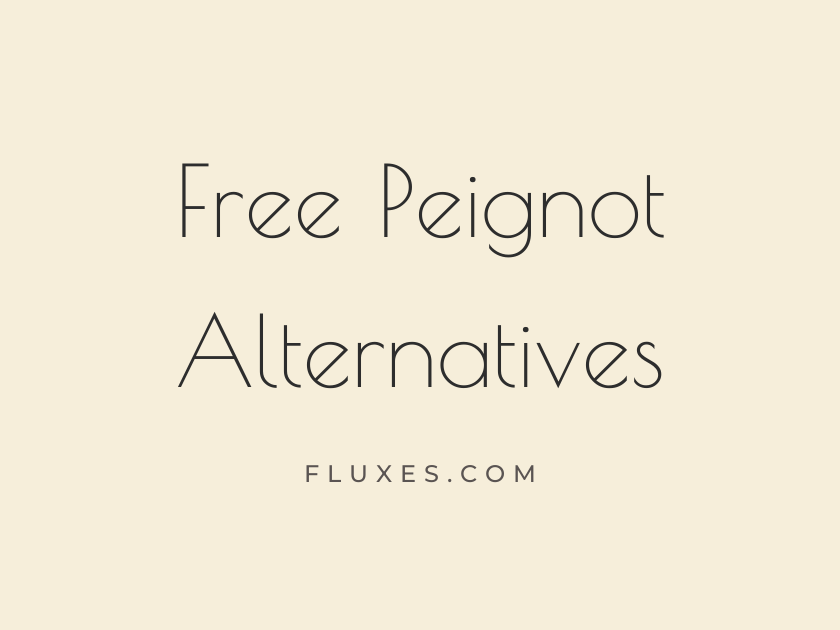
15 Best Free Fonts Alternatives to Peignot
Peignot occupies a strange and wonderful corner of type history. A. M. Cassandre drew it in 1937 as a radical experiment: a geometric sans built from unconventional lowercase forms that behave almost like small caps, all sharp angles and Parisian moderne confidence. It has never been available as a free font, and its idiosyncratic letterforms are genuinely difficult to clone, so anyone searching for free Peignot alternatives is really searching for the era it represents: Art Deco elegance, geometric structure, and a whiff of 1930s glamour. The fonts here do not copy Peignot letter for letter; instead they borrow its geometric bones, its confident titling presence, or its deco-revival mood, and every one of them is free on Google Fonts.
1. Poiret One
Champagne, velvet, and gleaming brass moderne
Of everything on this list, Poiret One sits closest to Peignot’s actual spirit. Its thin geometric strokes and elongated proportions were clearly built with the same 1920s Parisian salons in mind, and it works beautifully on perfume labels, boutique signage, and wedding stationery that wants a touch of deco theater. Keep it for display sizes only; those hairline strokes disappear at anything approaching body text.
2. Julius Sans One
Modern lines, ancient elegance, timeless deco style
Julius Sans One trades Peignot’s ornamentation for something starker and more architectural, all thin uniform strokes and wide letter spacing. It reads as cool and minimal rather than ornamental, which makes it a smart choice when a project wants deco geometry without the costume-drama flourish. Pair it with a heavier serif for contrast in a masthead or logotype.
3. Tenor Sans
A polished silhouette against midnight city lights
There is a restrained glamour to Tenor Sans that recalls the lettering on old ocean liner menus and hotel signage. The letterforms are geometric but softened just enough to stay warm, so it flatters both editorial headlines and luxury retail branding. It is a dependable workhorse for anyone chasing that vintage-modern balance.
4. Josefin Sans
Geometric curves inspired by nineteen twenties typefaces
Josefin Sans was explicitly designed with 1920s geometric sans-serifs in mind, and the resemblance shows in its circular o’s and short, confident ascenders. It has become a go-to for boutique branding, invitation suites, and blog headers precisely because it feels vintage without feeling costumey. At lighter weights it turns airy and refined; at heavier weights it gets noticeably bolder and more contemporary.
5. Federo
Sleek geometric letters for a glamorous evening
Federo has an understated deco quality, with rounded geometric shapes that feel friendly rather than severe. It suits shorter headlines and logotypes better than long passages, where its evenness can start to feel monotonous.
6. Krona One
Bold statements carved from polished chrome deco
Where Peignot whispers, Krona One announces. Its thick, blocky geometric letterforms carry real weight on posters, badges, and packaging that wants to shout in a deco accent rather than murmur one. It is not a font for subtlety, but for a bold retro headline it does exactly what is asked of it.
7. Michroma
Streamlined chrome curves for a moderne marquee
Michroma leans more machine-age than ballroom, with wide, evenly weighted letters that suggest deco architecture and vintage travel posters as much as fashion plates. It is a distinctive choice for a masthead or a single-word wordmark, though its width and uniform rhythm make it a poor fit for anything longer than a few words.
8. Six Caps
Vertical lines, tall shadows, glamorous city skylines
Six Caps is Bebas-family DNA stretched thin and tall, an ultra-condensed caps-only display that channels deco skyscraper lettering more than jewelry-counter elegance. Use it sparingly, in all caps, for posters or section headers where vertical drama matters more than warmth.
9. Bebas Neue
Bold marquee lettering for a glamorous premiere
Bebas Neue has become such a default choice for condensed display type that it is easy to forget how naturally its geometric caps sit alongside deco design work. It carries none of Peignot’s ornamentation, but its confident verticality and театральный, marquee-ready presence make it a reliable stand-in for bold deco titling online.
10. Ultra
Heavy ink and vintage circus poster glamour
Ultra is a fat slab serif rather than a geometric sans, but its bold, high-contrast letterforms carry an unmistakable vintage poster energy that pairs naturally with deco-era projects. Reserve it for short, punchy headlines; at length it becomes visually exhausting.
11. Yeseva One
Elegant flourishes for an art deco invitation
Yeseva One brings a decorative, almost hand-finished quality to display serif type, with subtle curls and contrast that recall deco-era advertising lettering rather than strict geometry. It works well on wedding invitations, wine labels, and boutique packaging that wants romance alongside structure.
For a deco-flavored pairing, try a geometric display headline set in Poiret One or Krona One above body text in a clean humanist sans like Montserrat. The contrast between ornamental heading and quiet, readable body keeps the page from feeling like a costume piece.
None of these fonts is a literal substitute for Peignot’s odd, brilliant letterforms, but together they cover the ground a designer usually needs: geometric confidence, deco glamour, and titling presence, all free to download and use on Google Fonts.